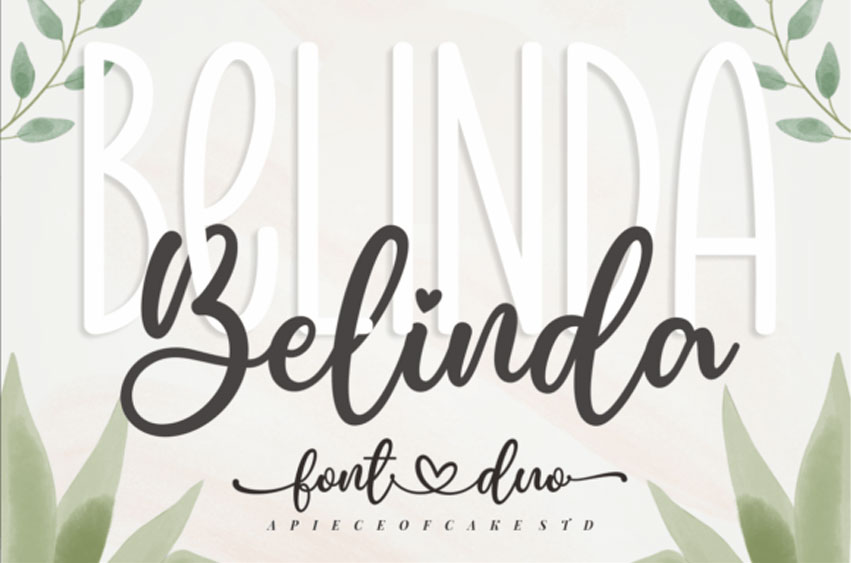
Belinda Duo Font
Belinda Duo Font consists of two fonts (handwritten and sans serif) designed to complement each other perfectly.
Together or apart, these fonts are ideal for adding a chic and cheery touch to your crafts. The shape of each character is very clean and contemporary.